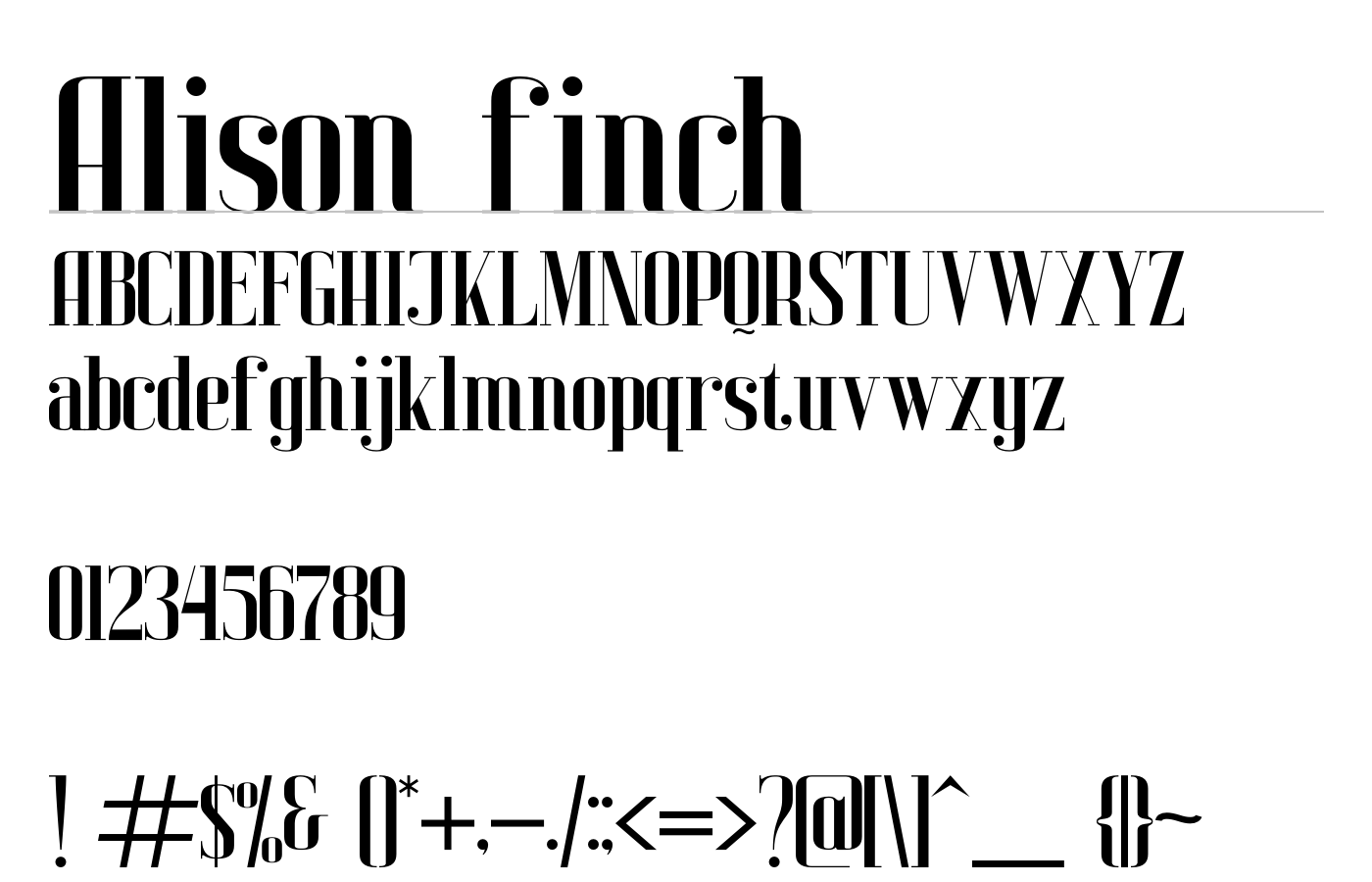
Alison Finch is a high-contrast, condensed serif font with a stylish, modern flair that leans towards an elegant, vintage aesthetic. Its tall, narrow letterforms with unique rounded terminals and sharp edges give it a distinctive, sophisticated personality ideal for upscale branding, fashion headlines, and editorial use where a strong, memorable impression is desired. This font excels in display sizes, lending a chic and refined look to logos, posters, and luxury packaging.
Alison finch Font
About Alison finch Font